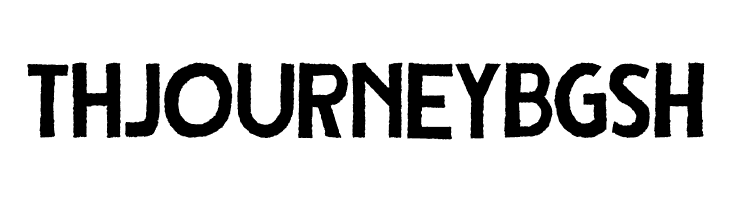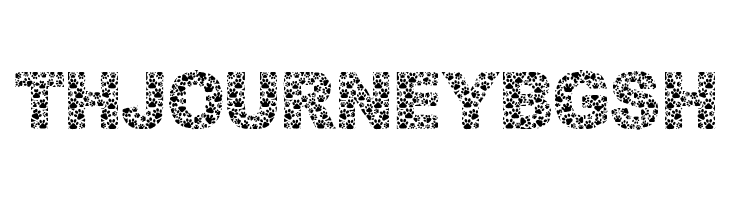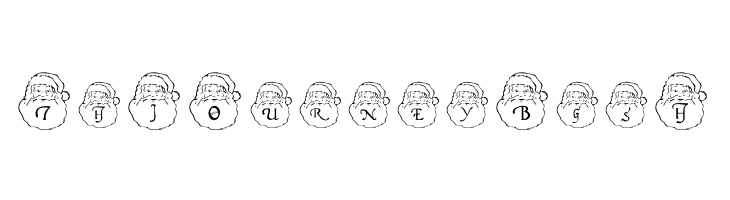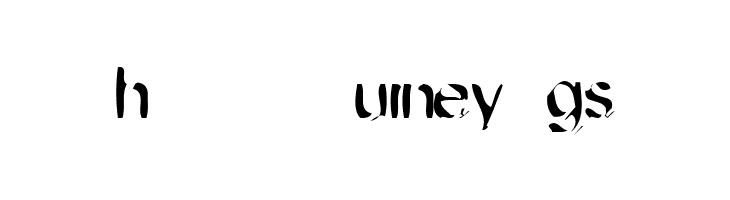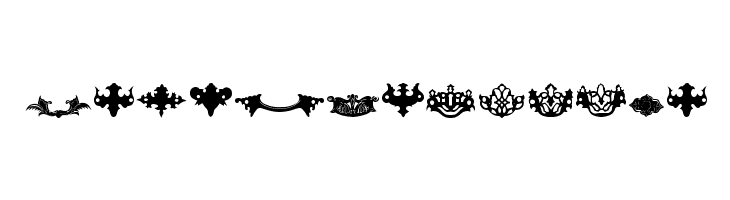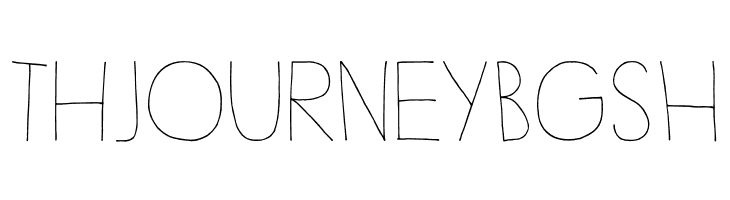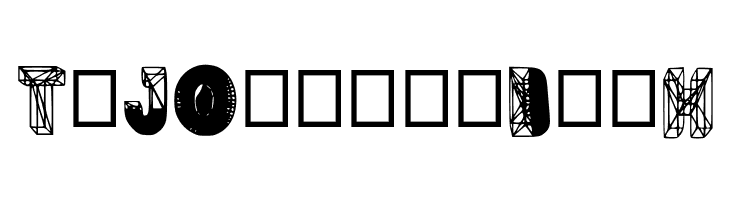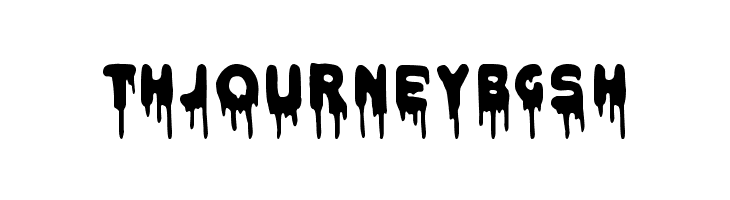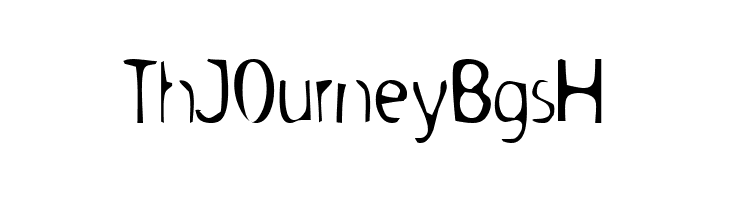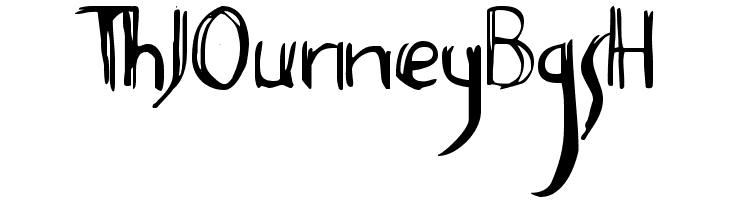
• Djoewana
Highly decorative and ornamental motif-based font.
• DK Compagnon Regular
A bold, hand-drawn font with a dynamic and slightly distressed appearance.
• DK Deco Pimp
A bold, hand-drawn font with dynamic strokes and artistic flair.
• DKSleepyTime
A whimsical, hand-drawn font with tall, slender characters and a playful style.
• DLSantaCaps
• Dmesh Medium
A geometric, mesh-like decorative font with a modern and artistic style.
• dob Filetype
• Doctor Satan
A bold, dripping font with a spooky, melting effect.
• DodgenburnA
A playful, hand-drawn font with irregular shapes and dynamic strokes.
• Dog Style
A playful font filled with dog paw prints, perfect for fun and pet-themed projects.